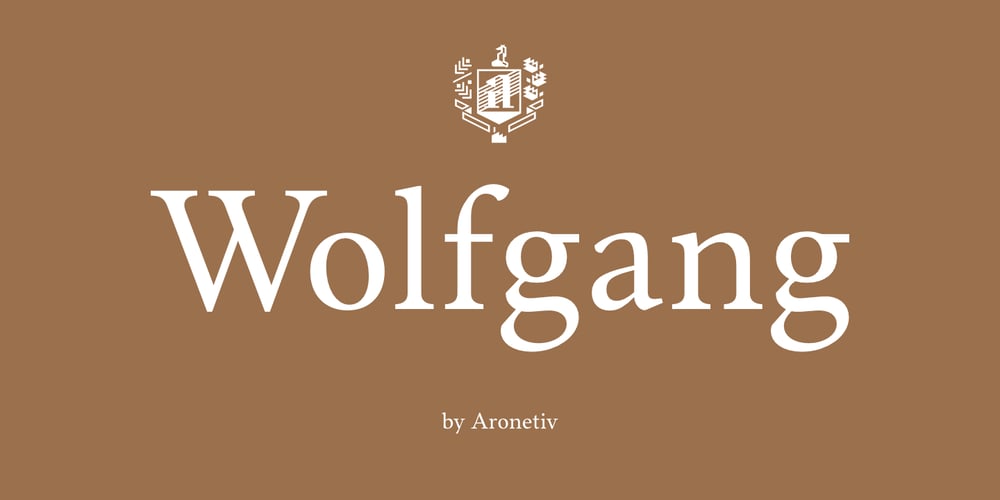
Wolfgang
Wolfgang font
Wolfgang Font Family was designed by Aleksey Popovtsev and published by Aronetiv. Wolfgang contains 6 styles and family package options. The typeface is influenced by early Italian-French serifs such as Garamond, Jenson, Griffo. The font has clear serifs and slightly sharp shapes. It has a modern character. The font has a uniform texture typical for this type of serif. This font family is well suited for the decoration of solemn and graceful materials. The font has a nice and appropriate italics. Wolfgang is legible and easy to read at small sizes.The font family contains 6 stylesThe font is equipped with a Variable file.Supports languages ??of central Europe Contains old style figuresThere are several alternates in the fontThe font has more than 1000 kerning pairs